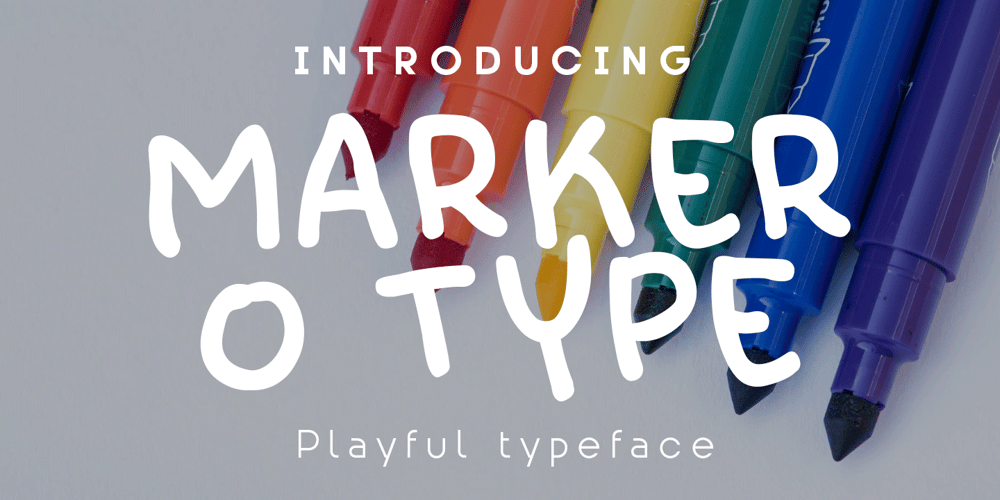
Marker O Type
Marker O Type font
Marker O Type Font Family was designed by Galang Persada and published by O Type Foundry. Marker O Type contains 1 styles and family package options. Explore Marker O Type: Your Playful Signature FontPerfect for Comic Books and More!With its unique brush style, Marker O Type injects a childlike signature into your designs. Ideal for main text in comic books, this font radiates joy and creativity.Why Choose Marker O Type?1. Unique Brush Writing StyleThis font is more than just letters; it’s art that brings a unique childlike touch. The brush style exudes playfulness, reminiscent of whimsical children’s writing like comic sans.2. Versatility for Various Design NeedsFrom logos to invitations, magazines, books, wedding cards, packaging, fashion, and even makeup, Marker O Type is the top choice. Its flexibility ensures a fitting appearance across various formal design needs.Experience Magic with Marker O Type:”Little girly hands, with a touch of marker magic, create cute, playful fonts perfect for kids’ books, greeting cards, and comics. The handwritten signatures add a decorative and comical twist, making them ideal for kiddos’ invitations, fashion labels, and packaging. Whether it’s for a kiddie’s blog, novels, or kids’ t-shirts, the kiddies font collection brings a fairy look to every project. From comic sans to a comic book font, the versatility suits a variety of marketing materials, making up a kiddo-friendly, kid-approved font paradise. The kid print and kid writing styles are also perfect for kids’ illustrations, adding a touch of moody charm to any stationery or magazines. Let your invitations, kids’ stories, and kiddo marketing materials shine with the unique charm of Marker O Type.”Elevate your graphic design to the next level with the cheerfulness and uniqueness of Marker O Type. Ideal for logos, invitations, wedding gifts, and product packaging, Marker O Type adds a personal and enjoyable touch to captivate your audience.